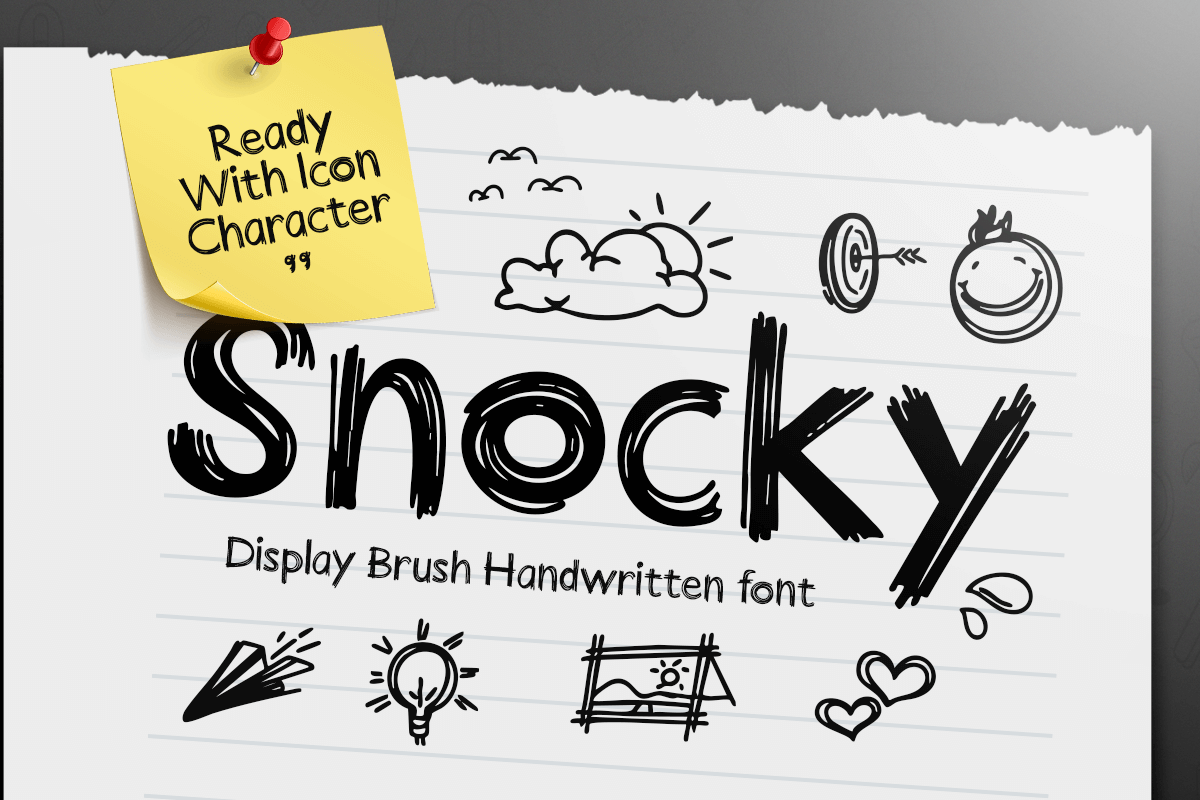
Snocky
-Scribble Handwritten font
Snocky - Scribble Handwritten font
SNOCKY is a scribble handwritten font that captures the charm of spontaneous sketching and playful doodles. With its uneven strokes, quirky curves, and hand-drawn texture, this font is perfect for adding personality and authenticity to your creative projects.
Designed to feel natural and expressive, SNOCKY works beautifully for kids’ materials, posters, social media graphics, branding accents, craft projects, and fun packaging. Every letter carries a lively, imperfect touch that makes your design feel more human, cheerful, and approachable.
Whether used for bold titles or small decorative notes, SNOCKY brings energy, creativity, and hand-crafted charm to both digital and print layouts.
SNOCKY – Scribble Handwritten Font Features
• Playful scribble-style handwritten lettering
• Available with 3 Different font: Regular, Bold and Icons
• Perfect for kids’ projects, packaging, posters, and doodle-themed designs
• Natural hand-drawn texture for authentic creative expression
• Friendly, fun, and expressive letterforms
• OpenType features for creative design flexibility
Add fun and creativity to every project with SNOCKY – the ultimate scribble handwritten font for playful and expressive design. ✏️✨